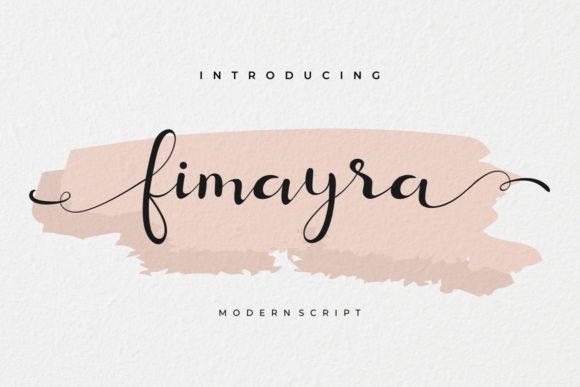
Embark on a typographic journey of elegance and charm with Fimayra, a script font family that captures the essence of timeless beauty. Inspired by the art of calligraphy, Fimayra brings a touch of handwritten grace to your creative projects, leaving a lasting impression on your audience.
With its delicate strokes and flowing lines, Fimayra effortlessly adds a personal touch to wedding invitations, thank-you cards, heartfelt quotes, and greeting cards. It's the perfect choice for expressing your emotions and conveying a sense of warmth and intimacy.
But Fimayra's versatility extends far beyond the realm of personal correspondence. It shines equally brilliantly in logos, business cards, and other branding materials, conveying a sense of sophistication and professionalism. Its ability to effortlessly elevate any design makes it a must-have for designers seeking to create truly impactful visuals.
Dive into the world of Fimayra and discover a treasure trove of stunning glyphs, swashes, and alternates, all accessible with ease thanks to its PUA encoding. Experiment with varying baselines and smooth lines to create captivating designs that captivate and inspire.
Fimayra is more than just a font; it's an invitation to express your creativity and leave an unforgettable mark on the world. Its timeless charm and versatility make it the perfect choice for any designer or creative professional seeking to create designs that resonate with elegance, emotion, and individuality.